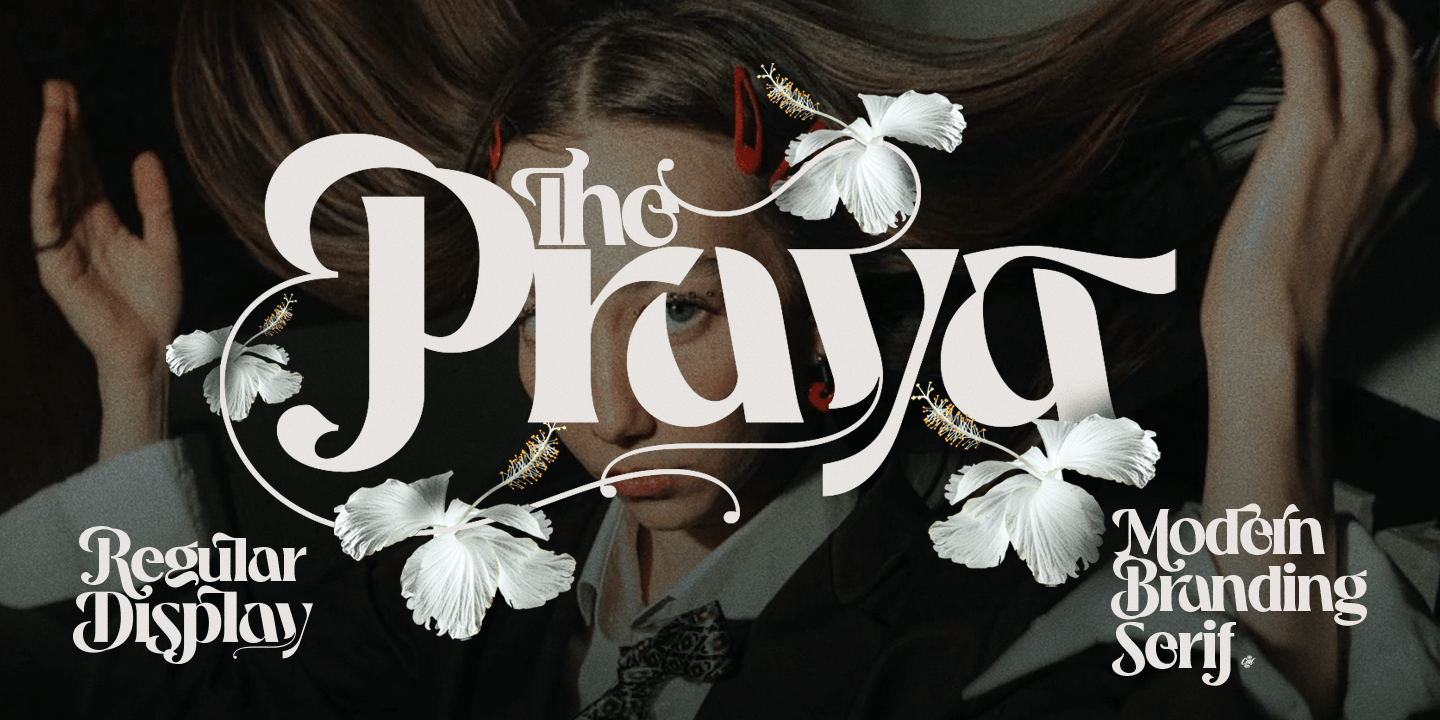
Praya Font is perfect for tropical resort branding, beach club materials, coastal tourism campaigns, surfing equipment packaging, island getaway promotions, oceanfront restaurant menus, vacation rental signage, summer festival posters, beachwear fashion labels, and paradise-themed marketing communications.
Praya Font is exciting because it embodies the carefree spirit of tropical beaches with its flowing, sun-kissed letterforms that capture the relaxed elegance of coastal paradise and the gentle rhythm of ocean waves. Its distinctive character design reflects both the natural beauty of pristine shores and the laid-back luxury that modern travelers seek, making it perfect for brands offering escape and tropical experiences.
Praya Font family includes light, regular, medium, bold, and black weights, each with corresponding italic versions. The font family also features tropical ornaments, wave-inspired ligatures, palm leaf decorative elements, and beach-themed symbols that enhance its coastal aesthetic and versatility.
This paradise-inspired typeface represents the perfect fusion of tropical relaxation and sophisticated design. Praya Font Free Download enables designers to experience its coastal charm before making a commercial commitment. The font's ability to convey both luxury and relaxation makes it ideal for brands targeting the premium travel and leisure markets.
Whether you're developing resort identities, creating vacation marketing materials, or designing beachfront business communications, Praya Font brings an unmistakable sense of tropical paradise to every project. Its flowing character and coastal heritage create visual connections that transport audiences to their dream destinations.
The font's versatility excels in leisure and hospitality environments where relaxation and exotic appeal are paramount. Its tropical character makes it particularly effective for resorts, travel agencies, beachwear brands, and coastal restaurants seeking to establish authentic connections with vacation-minded audiences.
For designers working on projects requiring authentic tropical character and paradise appeal, Praya Font offers an exceptional solution. Its coastal heritage and comprehensive beach-themed elements provide the tools needed for creating captivating vacation communications, while its relaxed elegance ensures your designs capture the irresistible allure of tropical getaways.